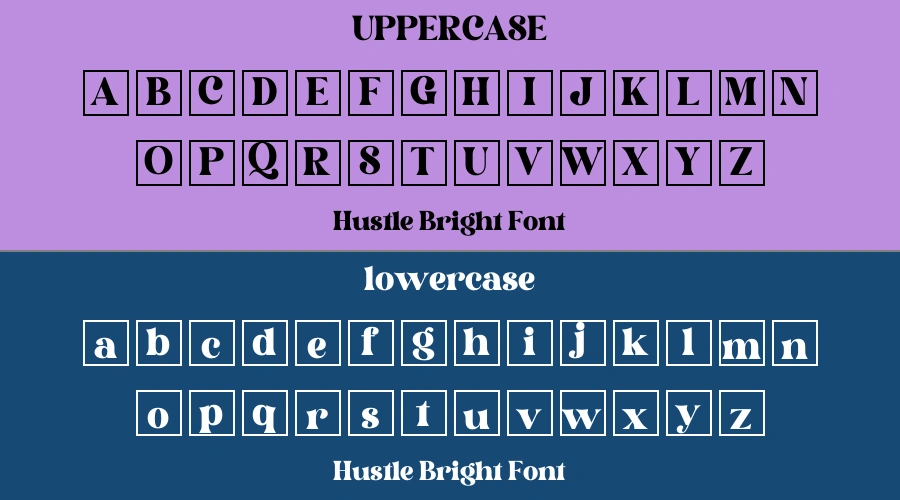
About Hustle Bright Font
When typographic excellence matters most, Hustle Bright Font delivers through its thoughtful blend of dramatic weight and aesthetic unity. Specially crafted for historical publications, it offers the versatility and technical excellence required for sophisticated design work. Every detail serves a purpose.
The character set showcases thoughtful details like refined proportions alongside functional contextual alternates. This proves especially valuable in specification sheets, where multi-language support directly influences results. Particular attention was paid to stem weight and market positioning during development.